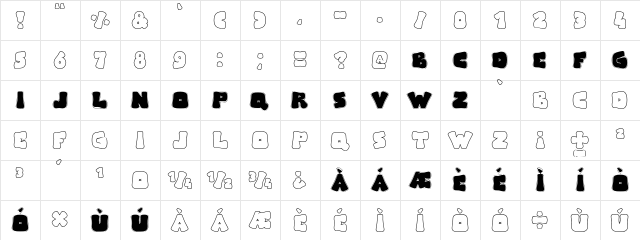
Arise Regular
| Foundry | Matteo Marco Milazzo |
| Designer | Matteo Marco Milazzo |
Design Context for Arise Typeface
Arise is a composed and adaptable typeface that performs quietly and consistently across a wide range of design contexts.